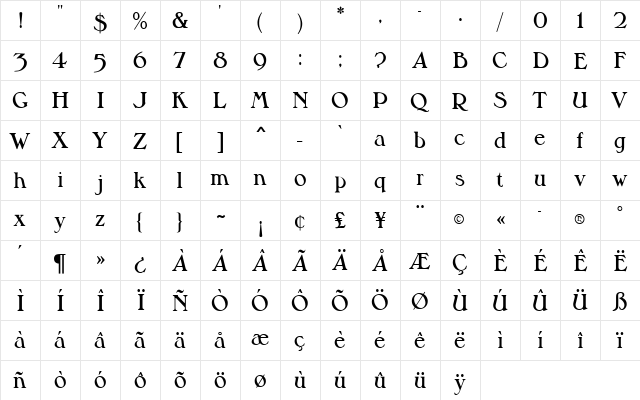
Milton MN Demibold
Design Context for Milton MN Typeface
Milton MN is a composed and adaptable typeface that performs quietly and consistently across a wide range of design contexts. The heavy weight commands attention and anchors typographic hierarchies.